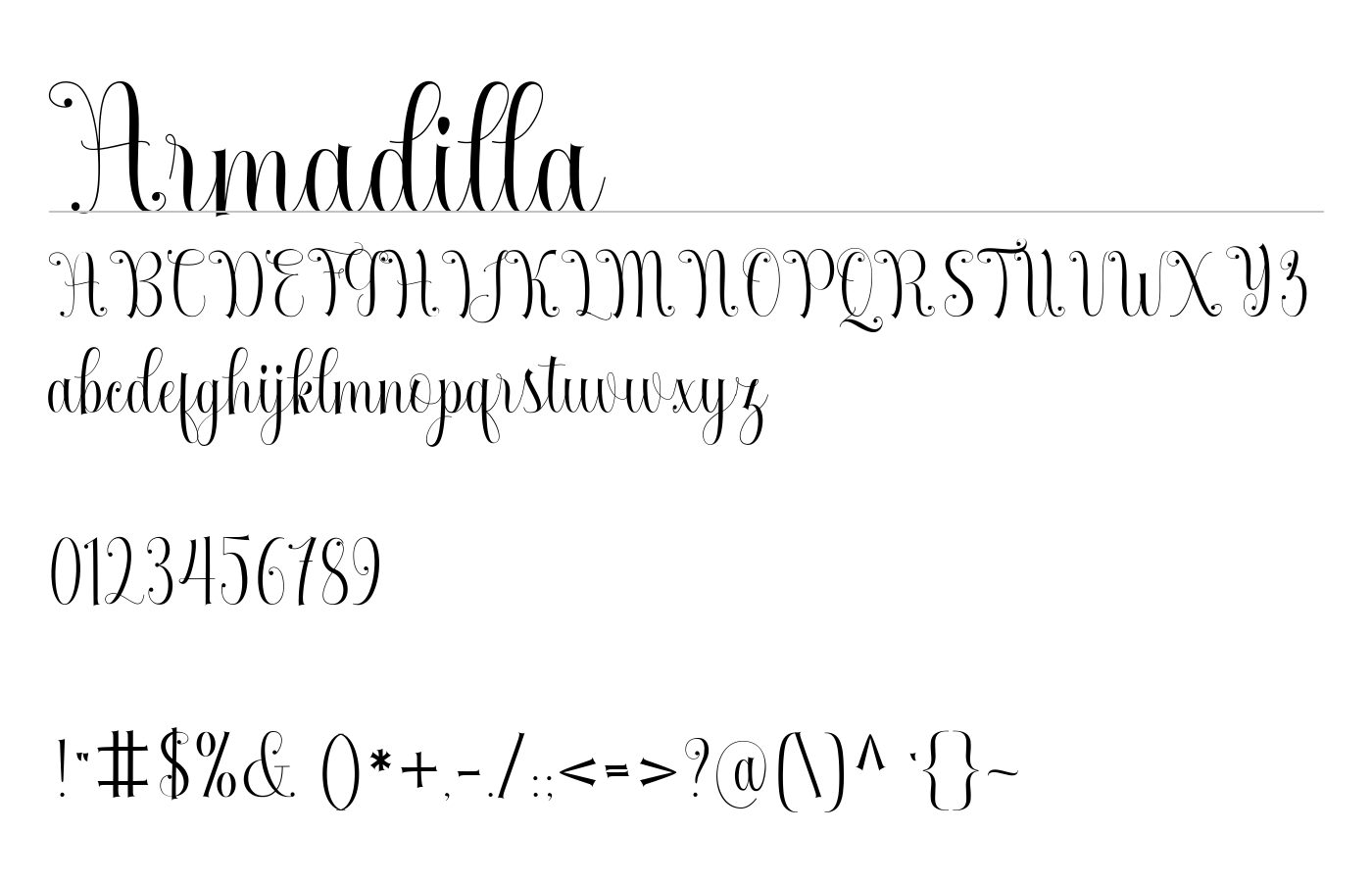
Armadilla is an elegant, decorative serif font with a slender and tall structure, featuring delicate curls and swirls that add a whimsical, artistic flair. Its thin strokes and high contrast between thick and thin lines give it a luxurious and sophisticated personality, making it ideal for creative branding, invitations, and headlines where a refined yet playful touch is desired. This font works well in fashion, beauty, and upscale editorial designs where originality and grace are key.
Armadilla Font
About Armadilla Font